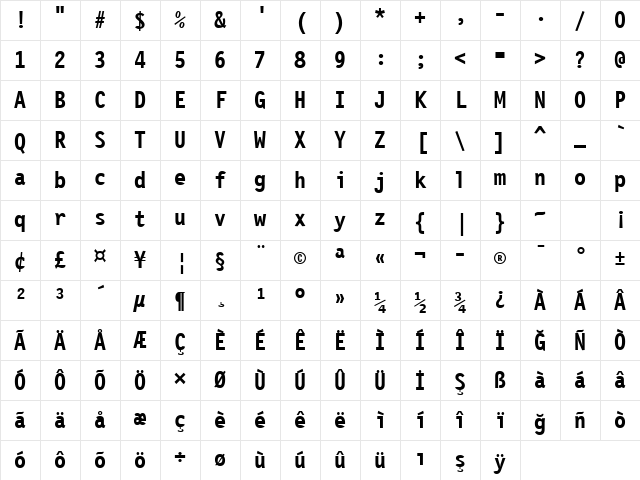
Complete LettrGoth12 BT Bold glyph index. Displaying only characters natively supported by LettrGoth12 BT Bold font.
LettrGoth12 BT is a composed and adaptable typeface that performs quietly and consistently across a wide range of design contexts. Its bold stroke weight gives it real presence on the page.